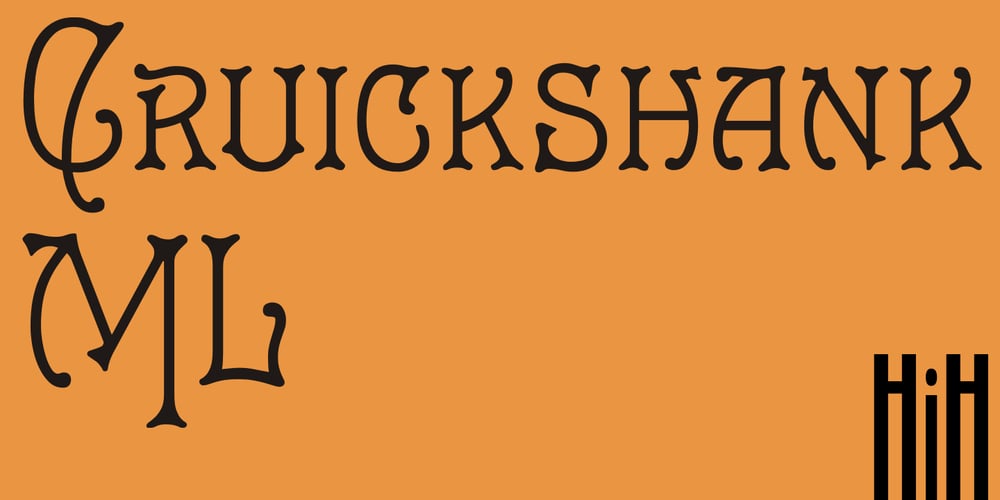
Cruickshank ML Font Family was designed by William W. Jackson and published by HiH. Cruickshank ML contains 1 styles and family package options. Cruickshank is a decorative typeface from the late Victorian period. The upper case includes several letters with swash strokes, extending well below the baseline, as found in the original design. Alternatives to the swash caps are provided. The lower case contains small caps of simpler design. The face was designed by William W. Jackson and released by MacKellar, Smiths and Jordan Type Foundry of Samson Street, Philadelphia, Pennsylvania in 1886. MS&J was founded originally as Binny & Ronaldson in 1796 and later known as The Johnson Type Foundry. Cruickshank has a strong late Victorian flavor without the extravagance of so many fonts of the period. In its simplicity and clarity, it may be seen as a precursor to the Art Nouveau style that would develop a decade later.